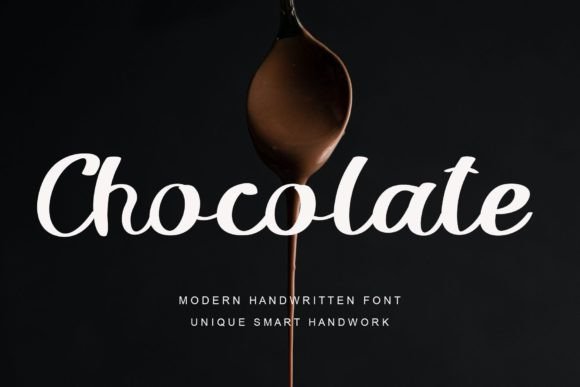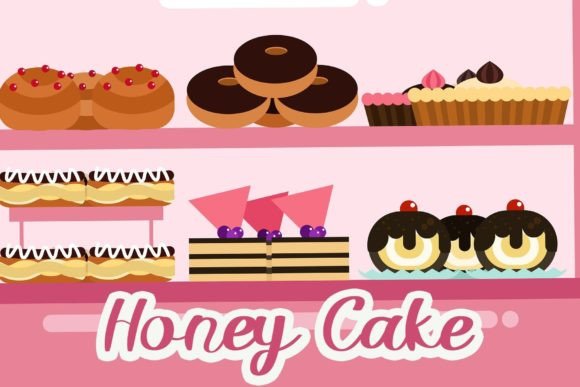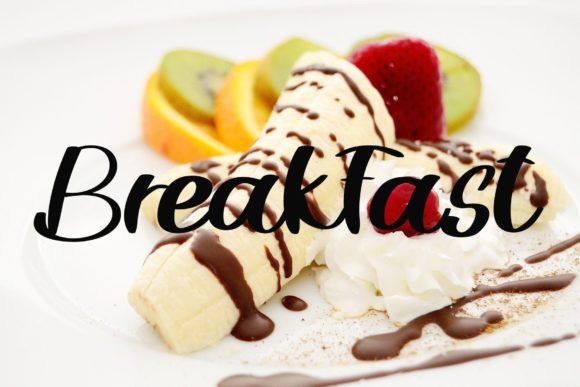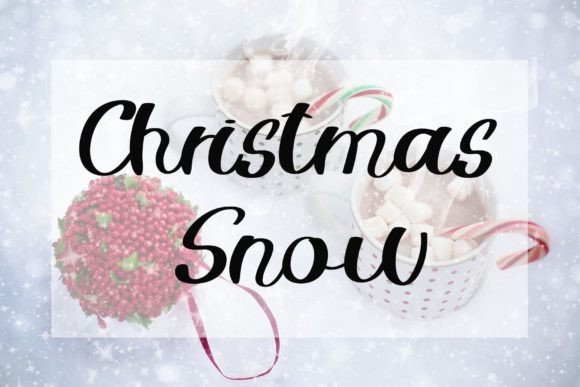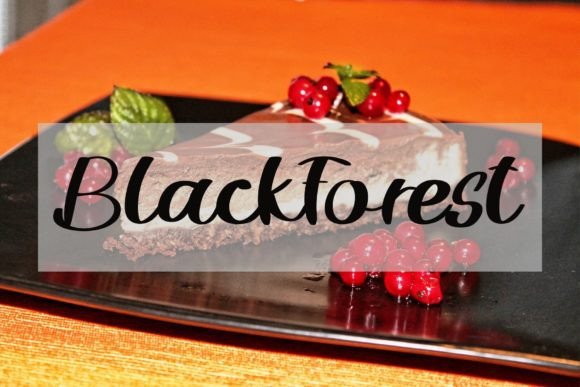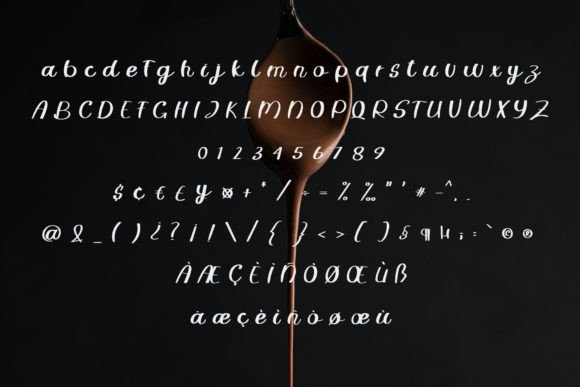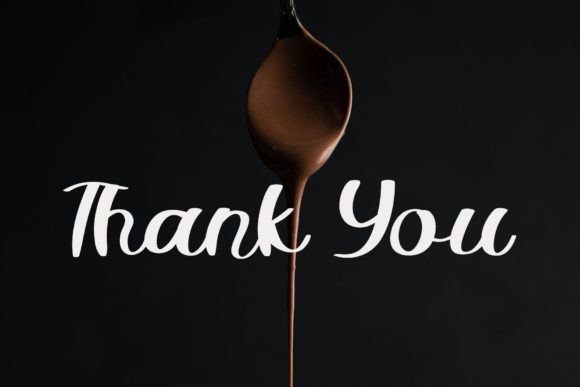
Chocolate Font
Chocolate, a romantic and sweet calligraphy script font, is a delightful addition to any design project, infusing it with a touch of luxury and charm. The characters in Chocolate appear to dance along the baseline, creating an enchanting and whimsical effect that is perfect for a variety of creative endeavors.
The romantic nature of Chocolate makes it an ideal choice for projects that require a dash of elegance and sophistication. Whether you’re working on wedding invitations, love-themed branding, or any design that aims to evoke a sense of romance, Chocolate adds a luxurious spark that captivates the audience.
The calligraphy script style of Chocolate contributes to its versatility, allowing it to adapt seamlessly to different design contexts. From branding materials to social media posts, this font brings a unique and personalized touch, elevating the overall visual aesthetic of your projects.
The playful dance of characters along the baseline in Chocolate introduces a dynamic and lively quality to the font. This aspect adds movement and personality, making it stand out among other typefaces. The fluid strokes and carefully crafted details enhance the overall visual appeal, making Chocolate a font that goes beyond mere text – it becomes a visual experience.
Whether you’re aiming for a classic, timeless look or a more contemporary and stylish feel, Chocolate can effortlessly accommodate various design preferences. Its romantic and sweet demeanor ensures that it resonates with a wide audience, making it suitable for a range of applications.
In summary, Chocolate is not just a font; it’s a design element that brings a romantic and sweet essence to your projects. With its calligraphy script style, playful baseline dance, and luxurious charm, Chocolate is a versatile choice for creating visually captivating designs that leave a lasting impression. Choose Chocolate to infuse your projects with romance and sweetness, creating an aesthetic that captivates and delights.